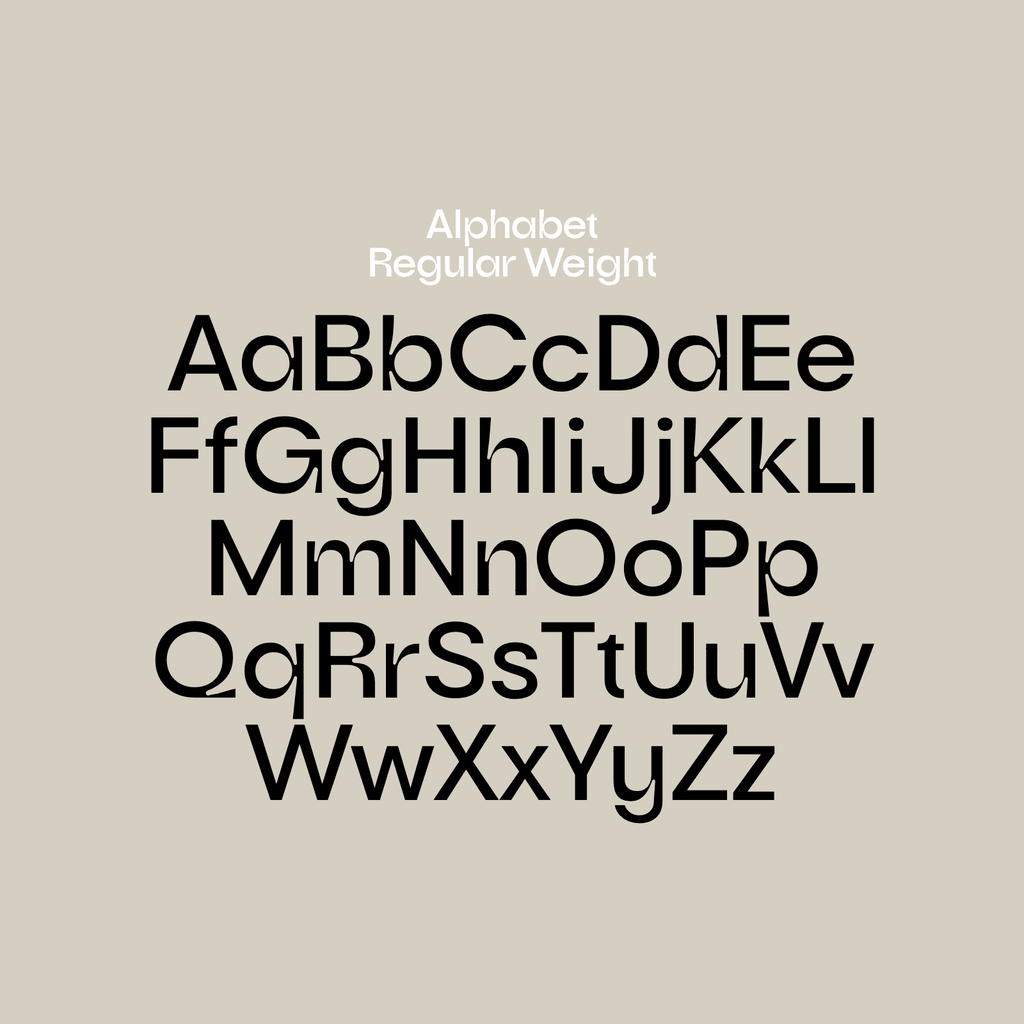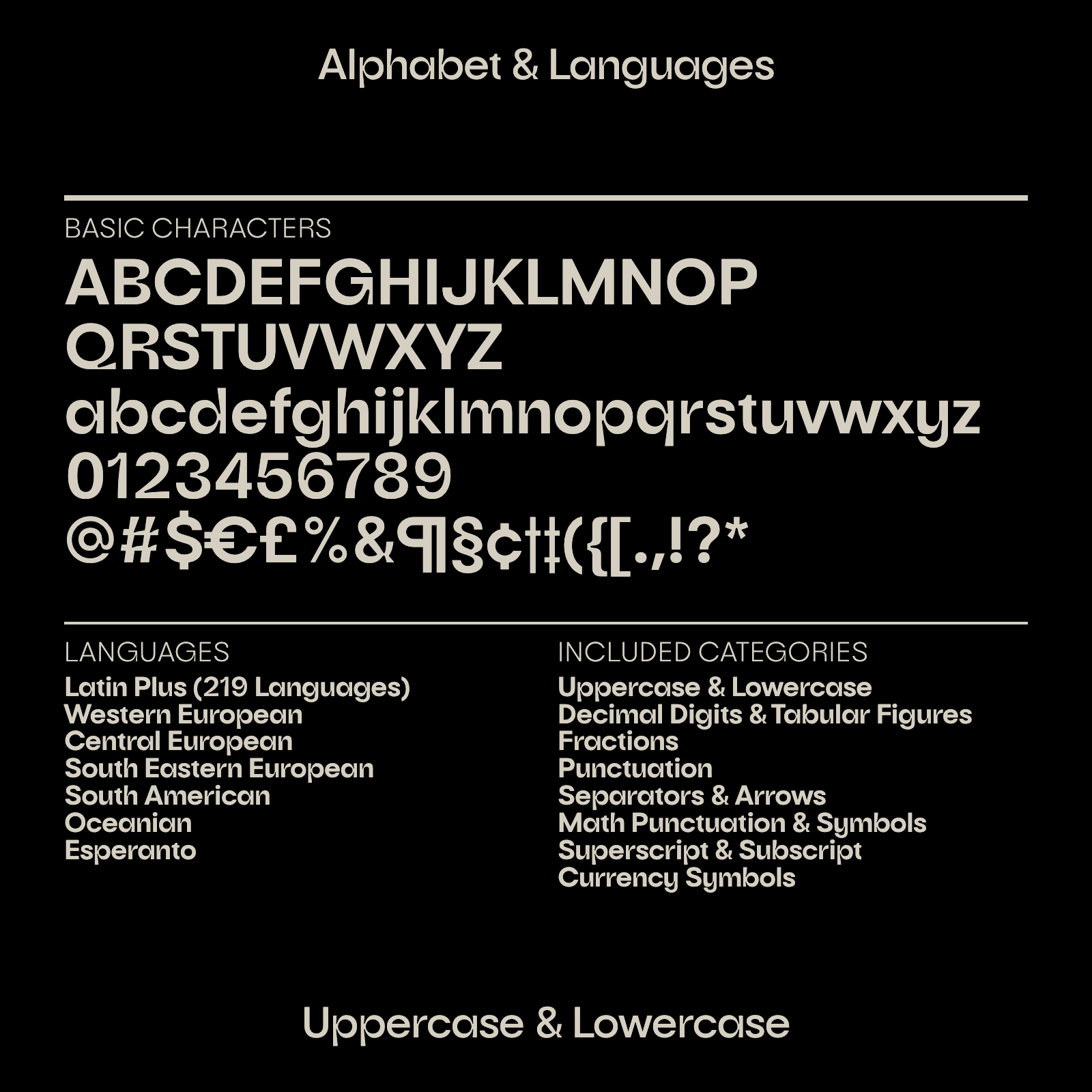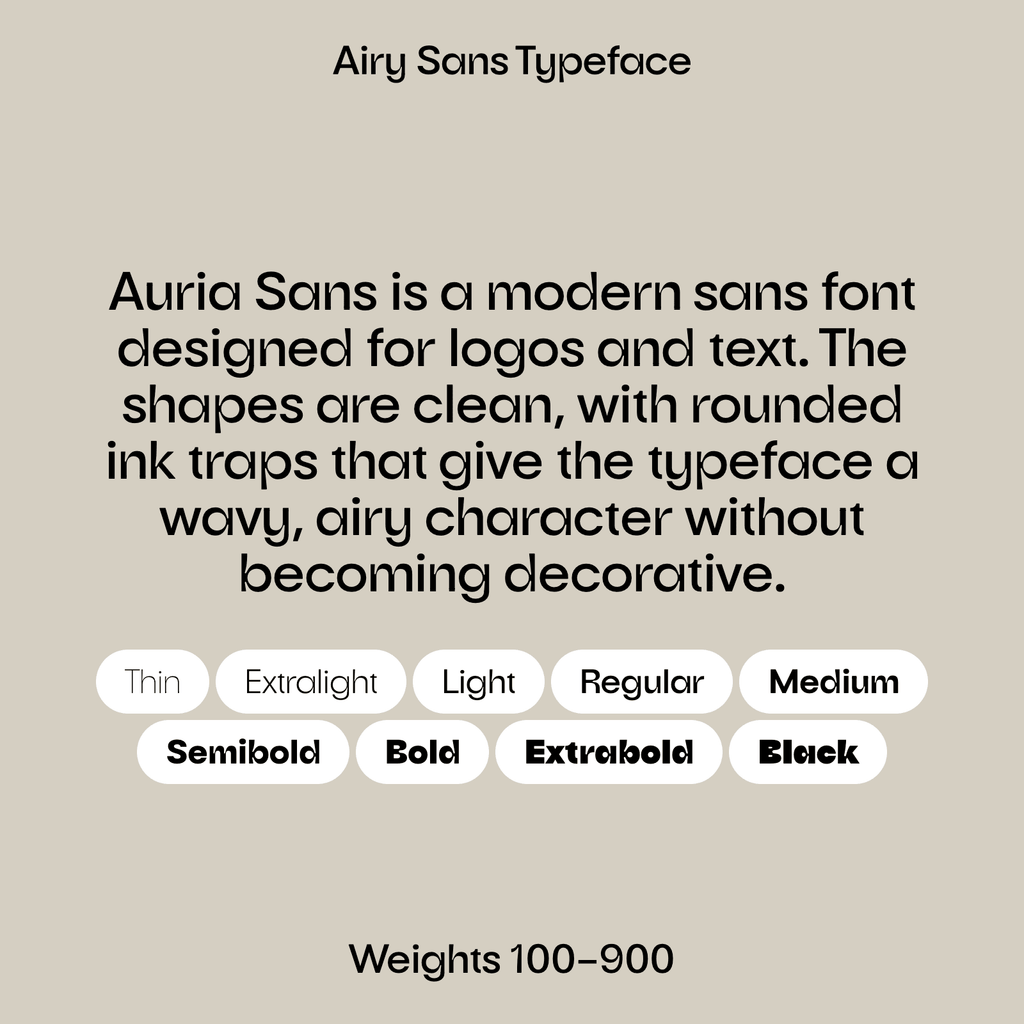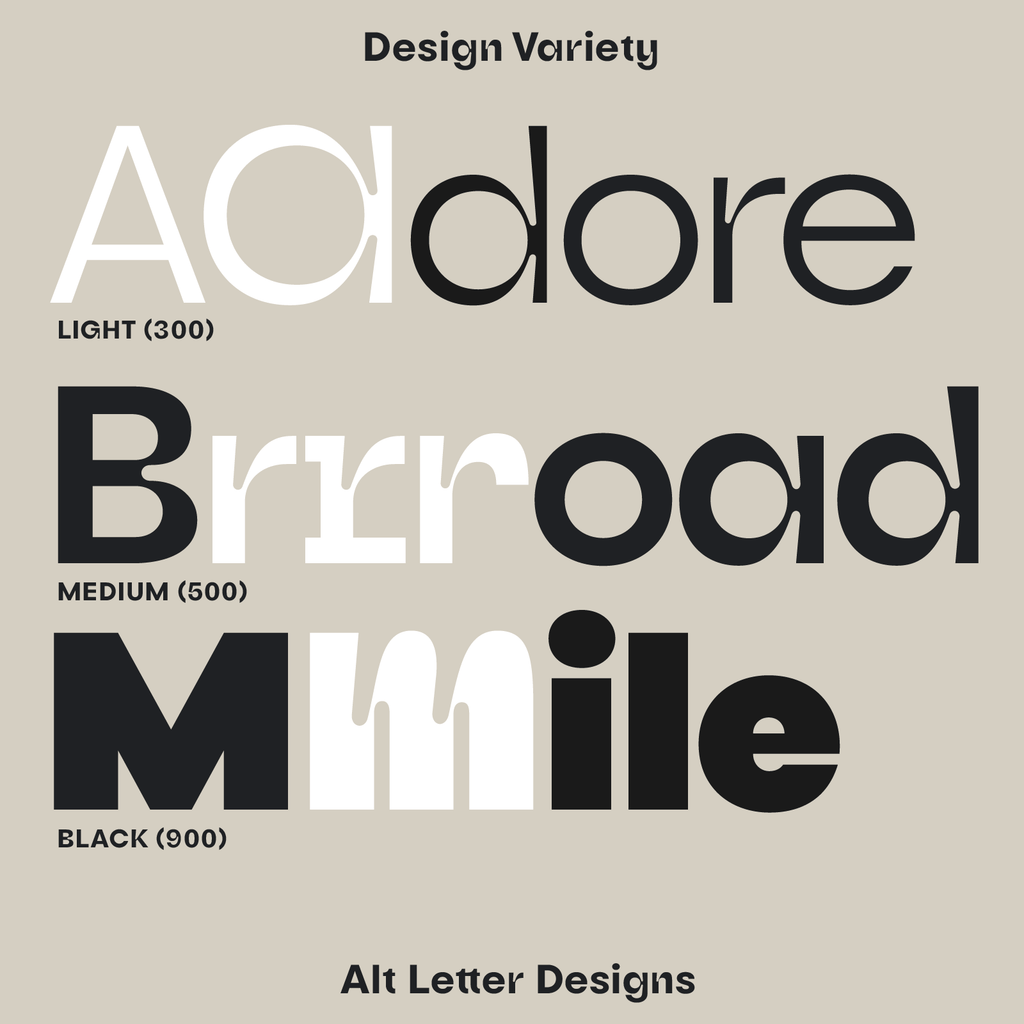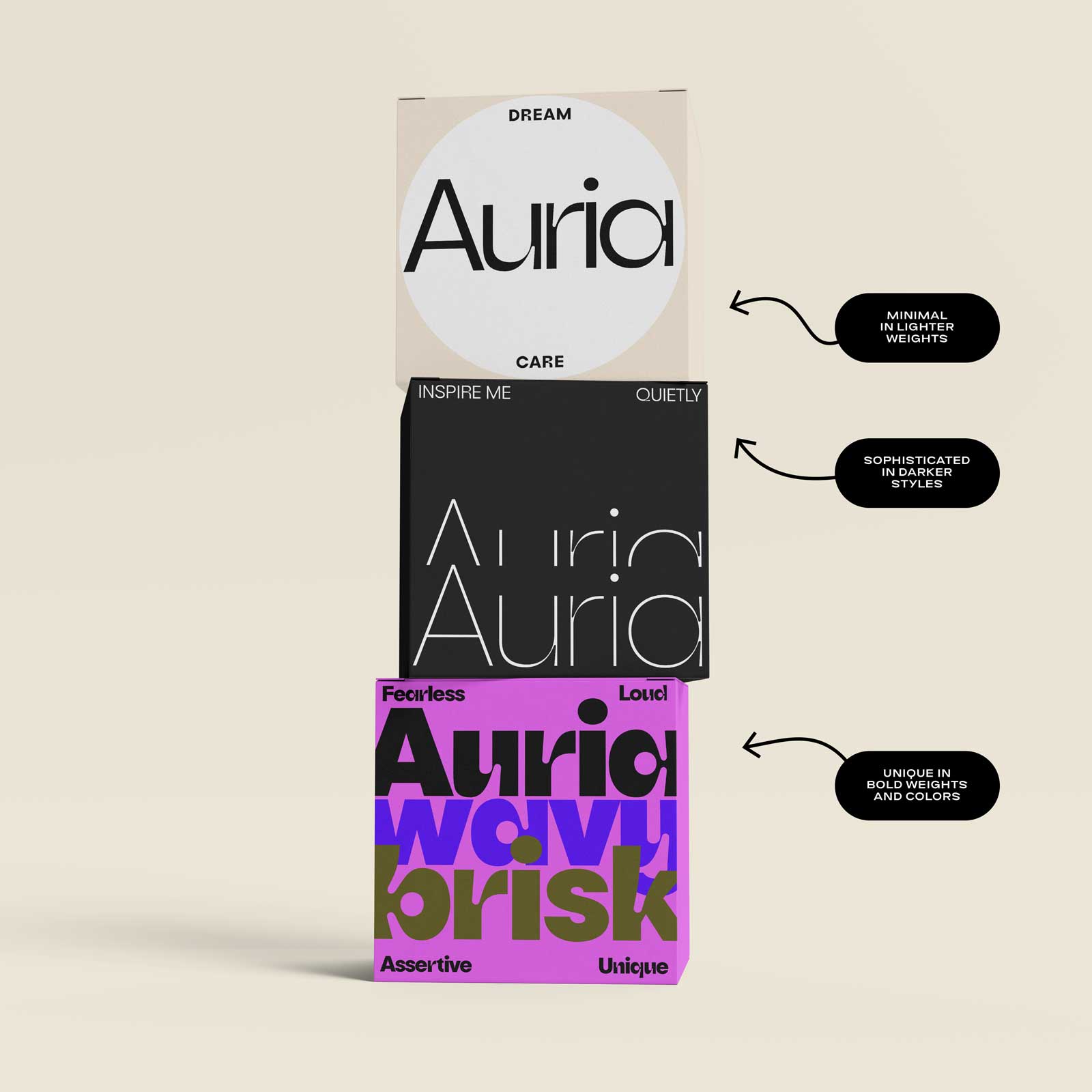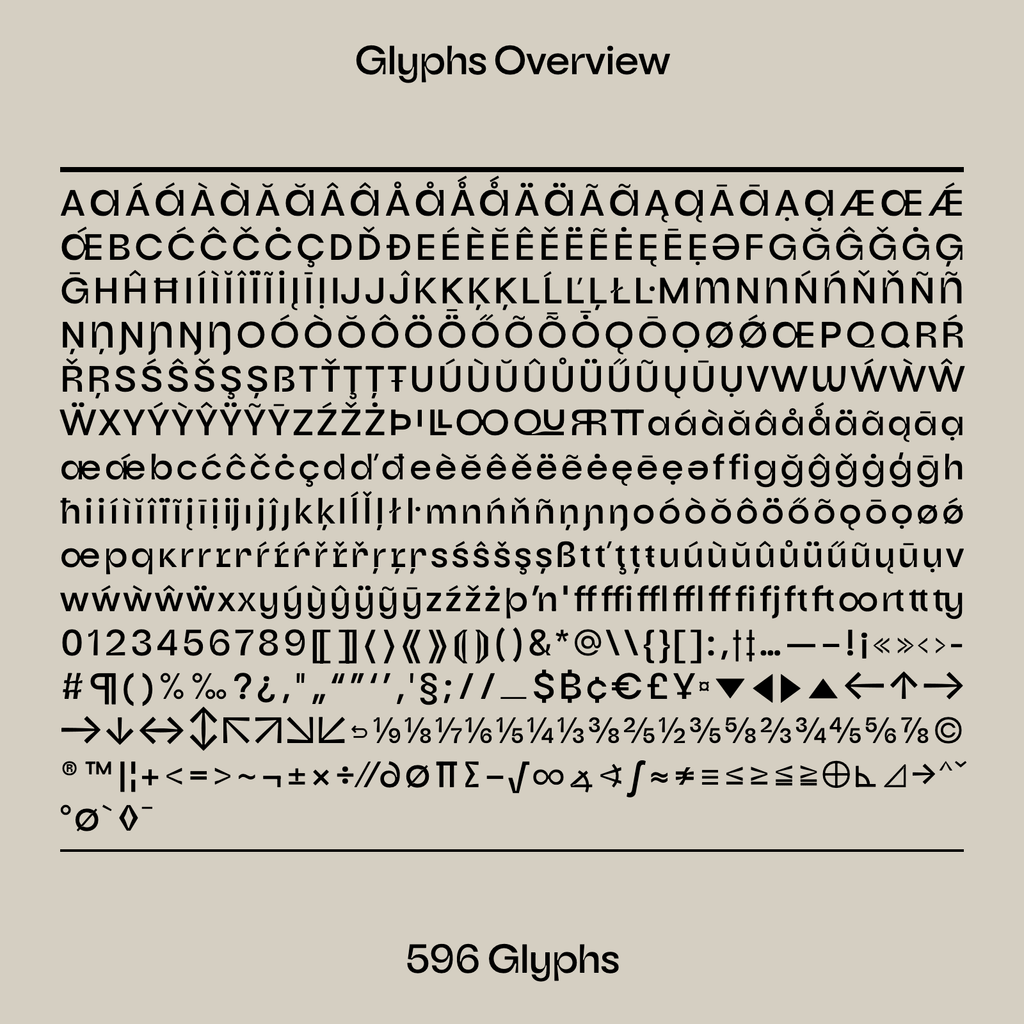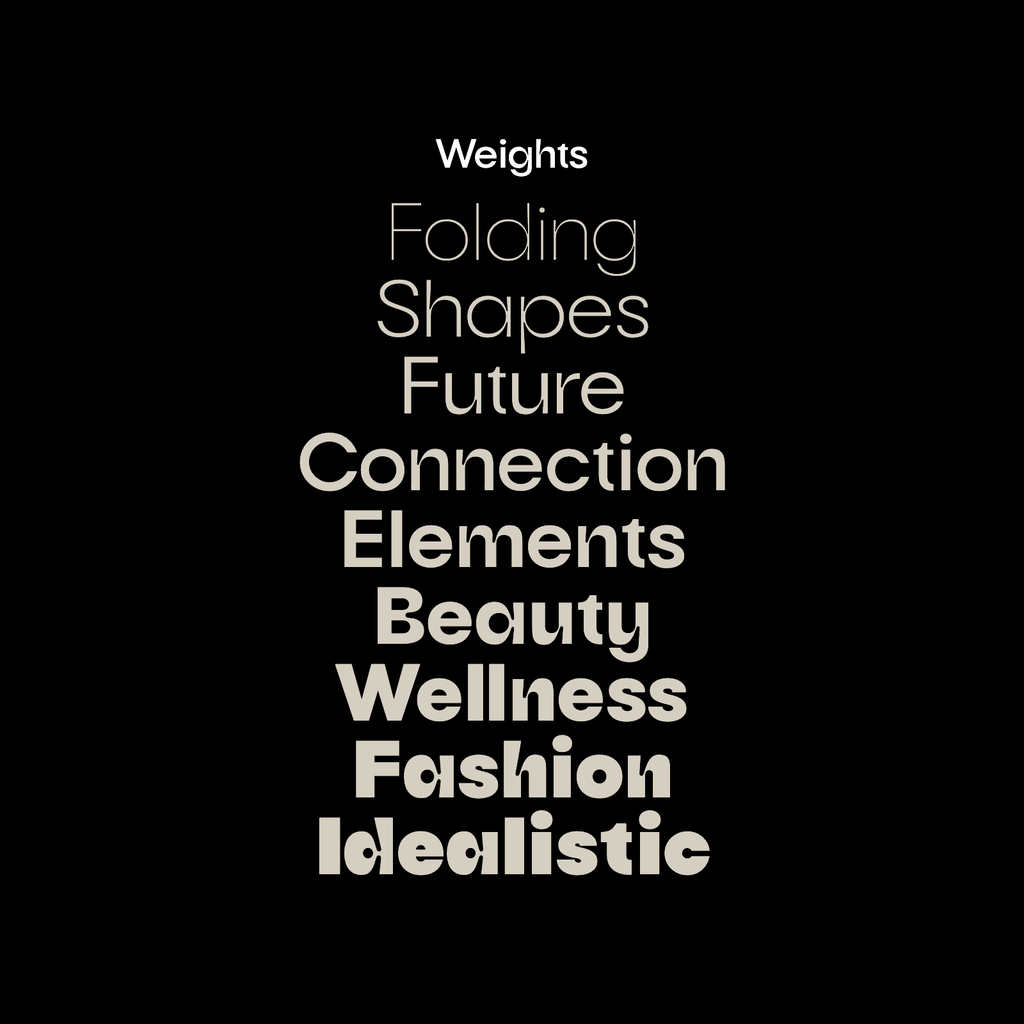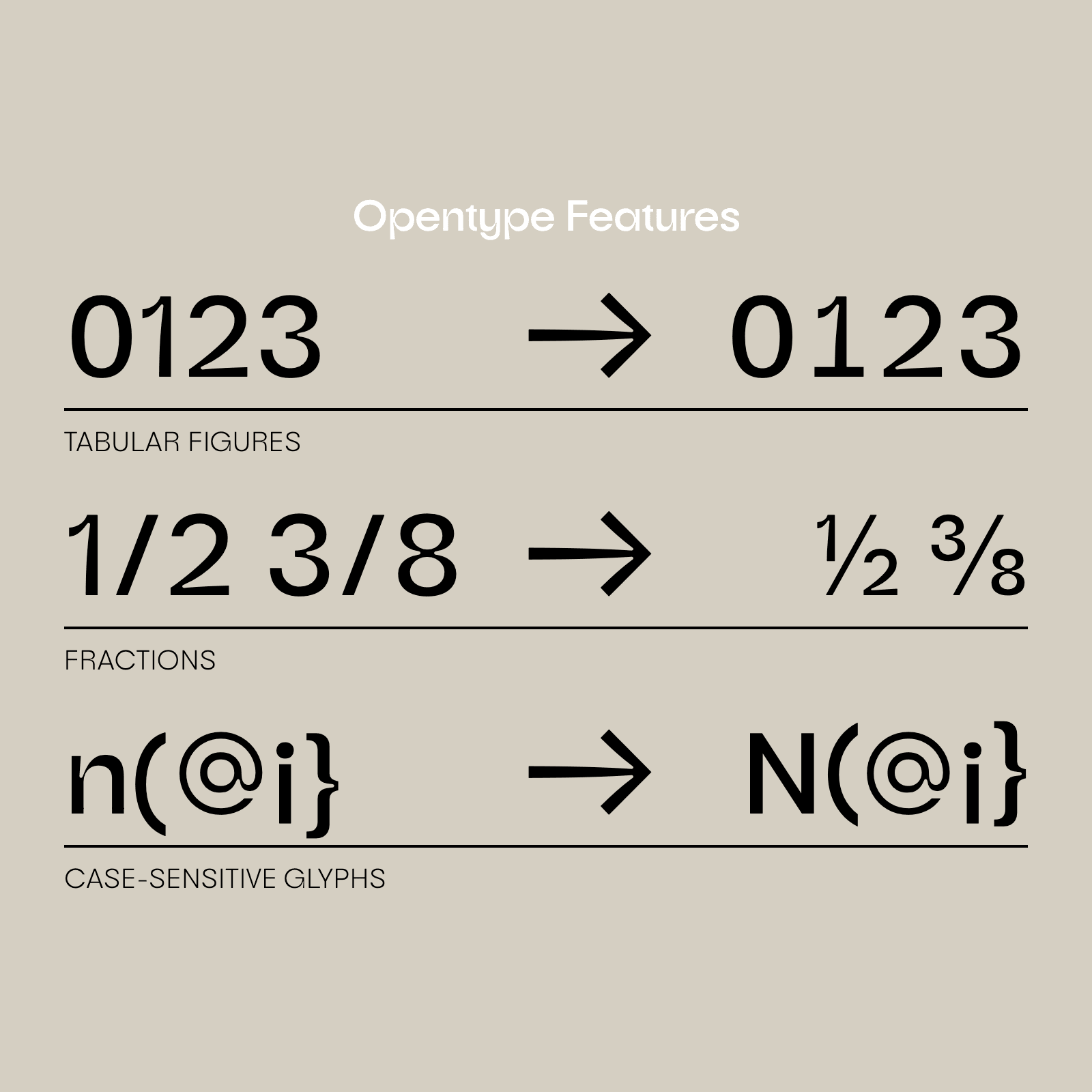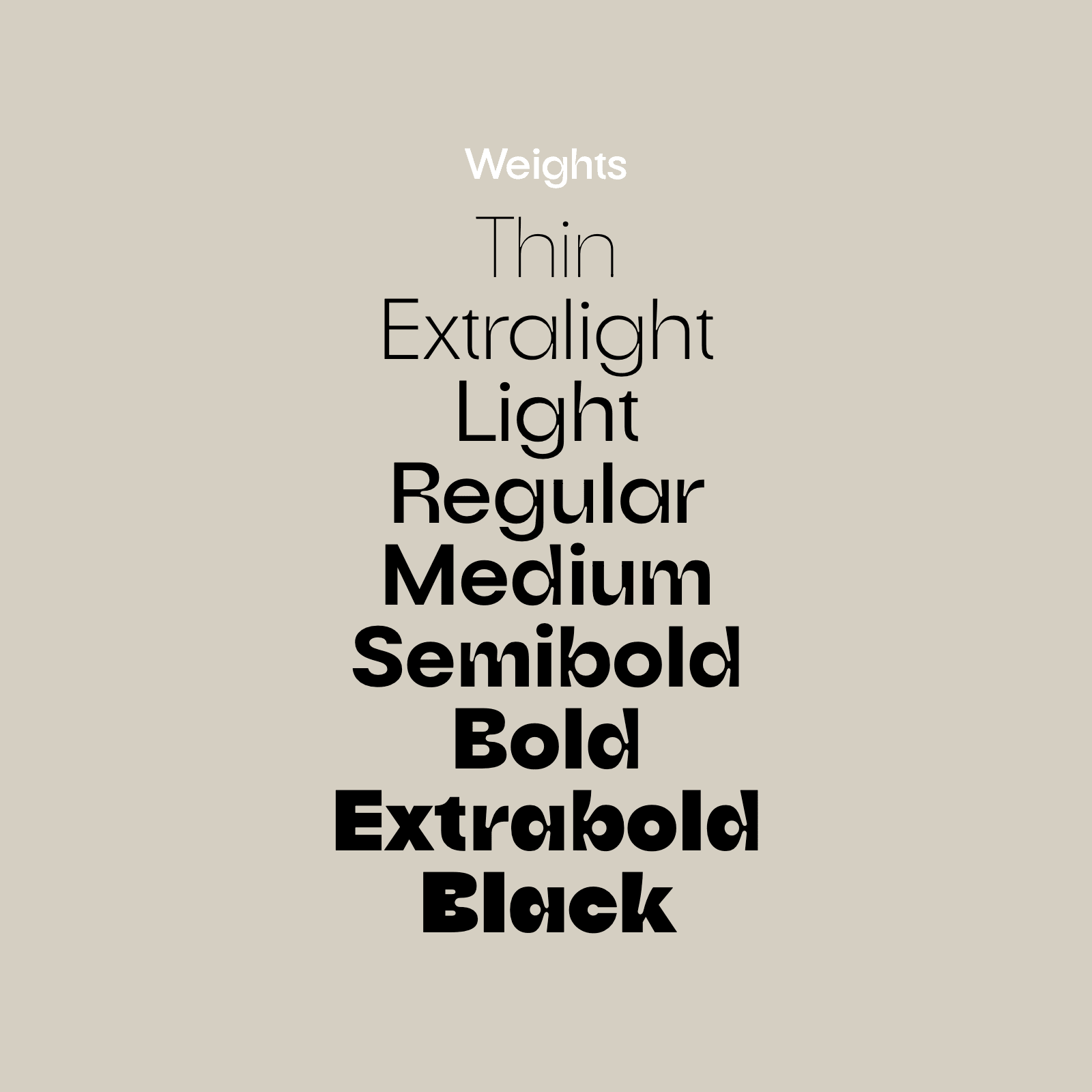
A geometric sans with soft notches where the arches of a, h, m and n meet their stems. The o is round and the g has one open loop.
The notches deepen from SemiBold up into a wavy outline. Beauty, fashion and jewelry brands and magazines.
Clean, wavy and airy.
Auria Sans is a modern sans-serif font for logos and text. Clean shapes and soft inner corners give it a wavy, airy character. A large set of alternates adds variety, including multiple r terminals, rounded options for A, M, and W, and generous circular dots for punctuation.
Includes 9 weights (Thin–Black), a full family, and a variable font.
Auria Sans · variable, 100 to 900
A geometric sans with soft notches where the arches of a, h, m and n meet their stems. The o is round and the g has one open loop.
The notches deepen from SemiBold up into a wavy outline. Beauty, fashion and jewelry brands and magazines.
Auria Sans in detail